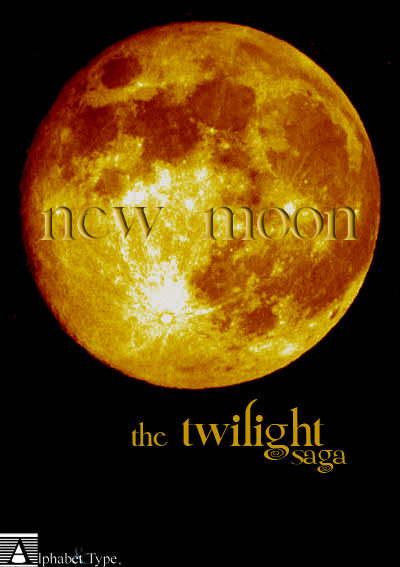
Twilight saga font (NEW MOON): directly from the Best Seller of Stephenie Meyer, the dark gothic atmospheres beloveds to the cult of the "vampiro", in an unknown garment that gives the young romantic love in the name of Bella and Edward, in the forbidden Love beloveds to the gotten passionate girls-readers more. |